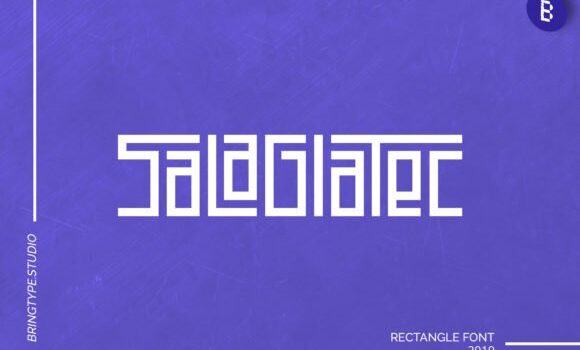
salagiatec
Salagiatec Font – Free Download Introduction to Salagiatec Font Salagiatec is a minimal and neat sans serif font. 📸 Preview Gallery 6 images 📌 Product Name Salagiatec Font 👤 Author bringtypestudio 📂 Category Explore ⬇️ Download Salagiatec Font FREE Free